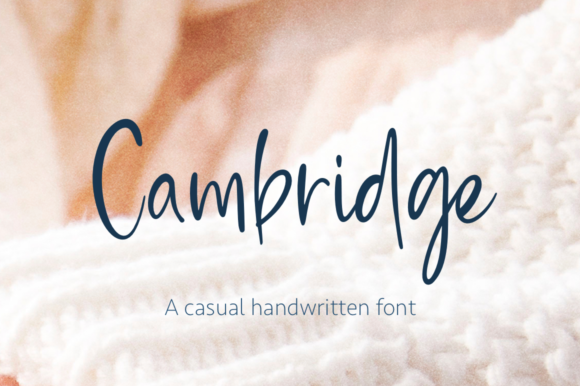
Welcome to the world of Cambridge Script Font, a creation of Pasha Larin, where elegance and readability harmoniously coexist. This exquisite script font, oozing with charm and sophistication, is meticulously crafted to elevate your projects to new heights of visual allure.
As you immerse yourself in the Cambridge font family, a symphony of emotions will wash over you. Its flowing strokes, reminiscent of a skilled calligrapher's hand, exude a sense of timelessness and artistry. Each letter, meticulously designed with graceful curves and delicate flourishes, dances across the page, captivating your senses and inviting you to explore the depths of its beauty.
Step into the realm of limitless possibilities with Cambridge Script Font. Whether you're a seasoned designer seeking to imbue your branding with timeless elegance or a creative entrepreneur desiring to make a lasting impression, this font is your muse. Its versatility knows no bounds, effortlessly adapting to a myriad of projects, from wedding invitations that whisper romance to blog posts that emanate personality. Unleash your creativity and let Cambridge Script Font guide you to design masterpieces that leave an indelible mark.
Envision the allure of your wedding invitations adorned with Cambridge's graceful script, each letter carrying the promise of a love story waiting to unfold. Picture the charm of your blog posts, infused with a touch of sophistication as Cambridge's elegant curves dance across the screen, captivating readers with every word. Allow your small business to flourish as Cambridge Script Font transforms your branding into a symbol of excellence and professionalism.
Let Cambridge Script Font elevate your book covers, transforming them into works of art that beckon readers to delve into the worlds within. Its timeless appeal adds depth and intrigue to any cover, inviting readers to embark on literary journeys they'll never forget.
The applications of Cambridge Script Font are boundless, extending far beyond the aforementioned examples. Its versatility shines through, whether you seek to create stunning social media graphics that capture attention or design eye-catching posters that demand to be noticed. Cambridge Script Font is your trusted companion, ready to bring your creative visions to life.